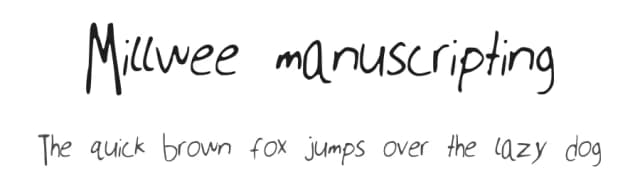
About JMillmanuscript Font
JMillmanuscript is a script & handwritten font designed by Jackson Millwee. It includes 143 glyphs, a medium weight, TTF (TrueType) format, and 133 languages. JMillmanuscript is free to download; check the license details on this page before commercial use. Script & handwritten fonts like JMillmanuscript work best for wedding invitations, greeting cards, signatures, and elegant branding.
JMillmanuscript Font is a script font that shines as a display or heading face. Pair it with a clean sans-serif or serif font for body text β the contrast creates a clear hierarchy while the two styles stay balanced and easy to read.